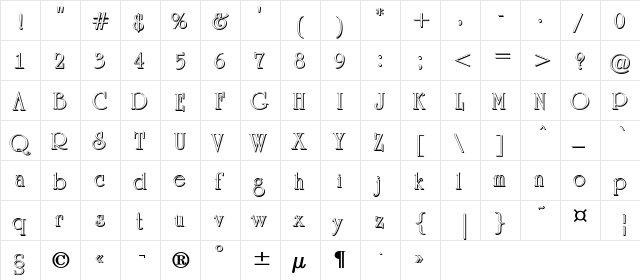
a_RomanusSh Regular
Design Context for a_RomanusSh Typeface
a_RomanusSh is a composed and adaptable typeface that performs quietly and consistently across a wide range of design contexts.
Pro Tip: Pair a_RomanusSh with a font of contrasting weight or personality to build a more expressive typographic hierarchy.